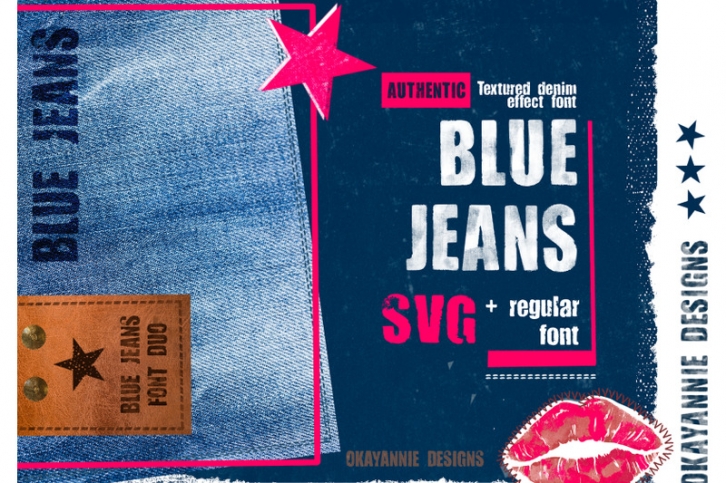
Blue Jeans SVG and Regular Font by OkayAnnie Designs
Turn up the music and let’s make those blue jeans talk…I’m super excited to introduce Blue Jeans SVG and Regular Font by OkayAnnie Designs.
An authentic burlap/textured SVG effect font and a textured Regular font included for those who are unable to work with SVG.
The Blue Jeans Font Duo includes uppercase and lowercase letters, numbers and standard punctuation.
Have a look at my mockups to get inspired by this gorgeous textured Blue Jeans font. It’s simply stunning for social media quotes, wall art, stationery, advertising, scrapbooking and more!